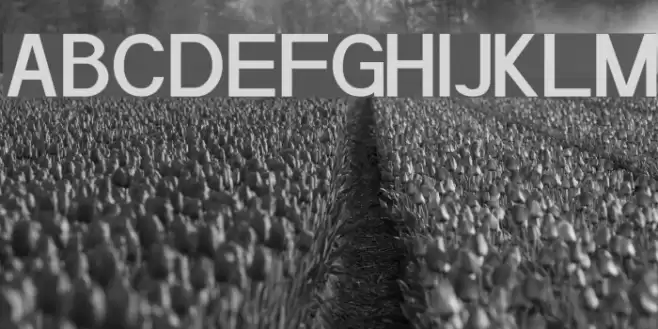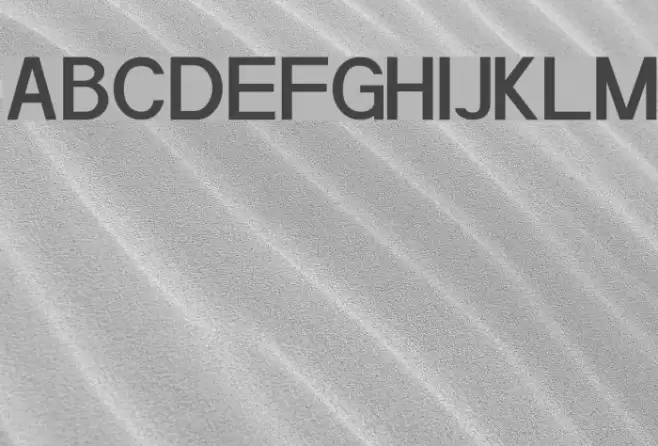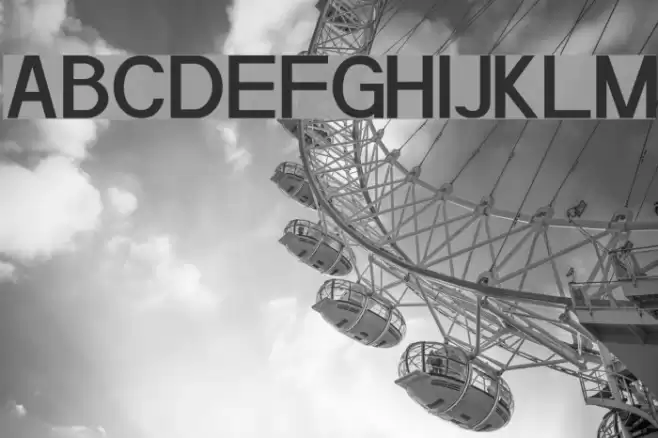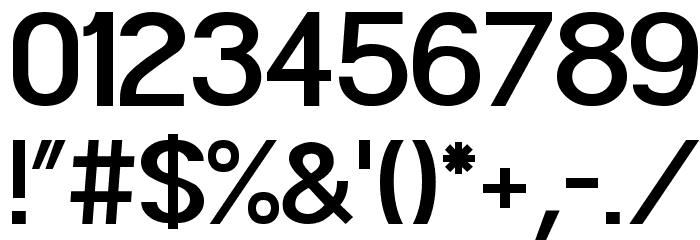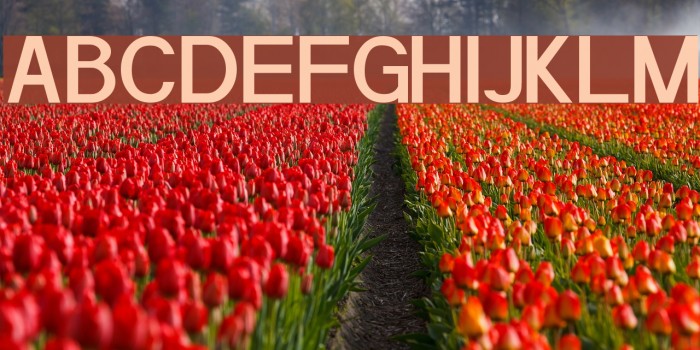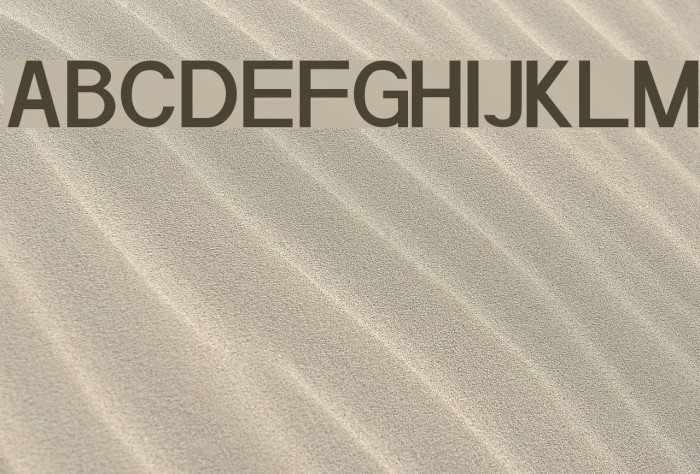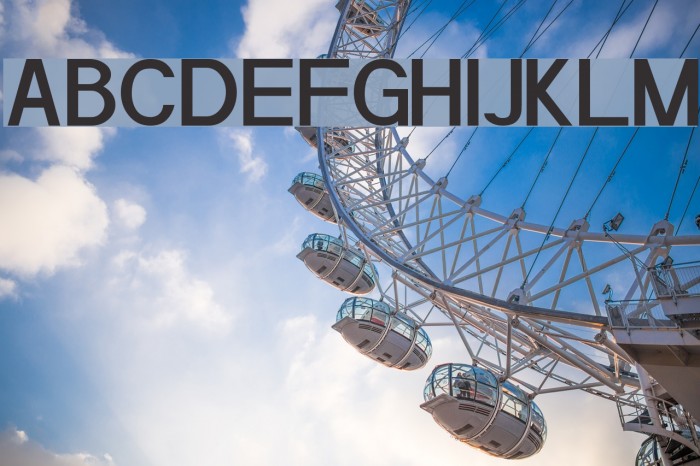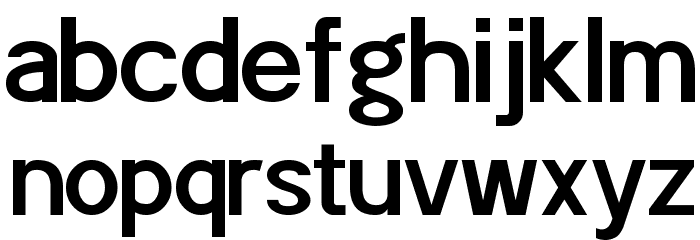
POE Sans Pro Semi-bold Font
POE Sans Pro Semi-bold Description
This font features a clean, modern sans-serif design with a semi-bold weight, making it highly legible and versatile for various applications. The characters are evenly spaced, providing a balanced and harmonious appearance. The uppercase and lowercase letters are well-proportioned, with a consistent stroke width that enhances readability. The numerals are clear and distinct, while the special characters are designed to complement the overall style. This font's simplicity and clarity make it suitable for both digital and print media.
A modern, semi-bold sans-serif font with excellent legibility and balance from Uncategorized fonts.
- Proposed Projects: Ideal for branding, web design, advertising, and editorial projects where clarity and modernity are key.